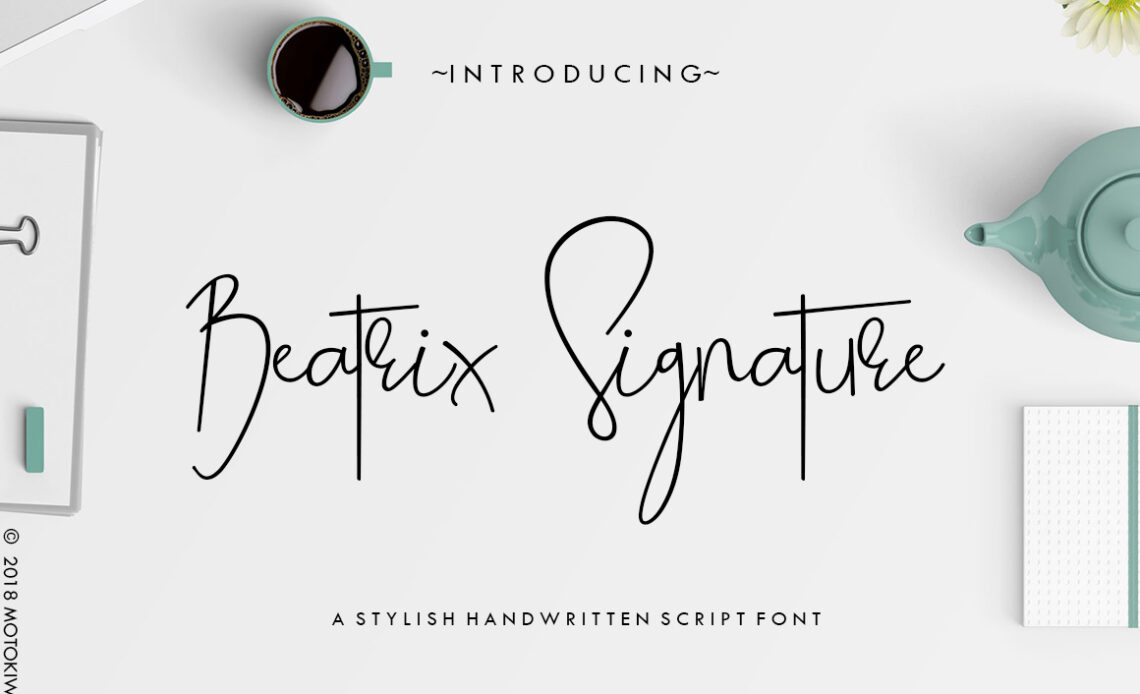
In a world clamoring for authenticity, Beatrix Signature Font emerges as a symphony of elegance and grace, an ode to the beauty of handwritten scripts. This enchanting font, crafted by the visionary motokiwo, is not merely a collection of letters; it's an invitation to embark on a journey of self-expression, a testament to the power of individuality.
Beatrix Signature Font belongs to the illustrious family of script fonts, renowned for their ability to evoke emotions and create an intimate connection with the reader. Its clean and minimal design exudes sophistication, lending an air of effortless charm to any project it adorns.
Unlike ordinary fonts that blend into the background, Beatrix Signature Font commands attention with its fresh and thin strokes, reminiscent of a gentle breeze rustling through autumn leaves. Its timeless appeal transcends fleeting trends, ensuring that your creations remain relevant and captivating for years to come.
With Beatrix Signature Font, you unlock a treasure trove of creative possibilities. Its versatility knows no bounds, seamlessly adapting to a myriad of projects, from alluring logotypes to captivating displays. Unleash your imagination and let the font's elegant curves guide you towards design masterpieces that leave an indelible mark.
Whether you're a seasoned designer seeking a touch of refinement or a novice eager to elevate your projects, Beatrix Signature Font is your steadfast companion. Its intuitive design and user-friendly nature make it accessible to all, ensuring that your creative vision takes center stage.
As you embrace Beatrix Signature Font, you become part of a community of discerning individuals who appreciate the finer things in life. This font is more than just a collection of characters; it's a reflection of your discerning taste and an expression of your unique personality.
Don't settle for ordinary fonts that fail to inspire. Embrace Beatrix Signature Font and unlock a world of boundless creativity, where your designs blossom with elegance and charm. Let your projects speak volumes, capturing hearts and captivating minds with every stroke of this exquisite font.